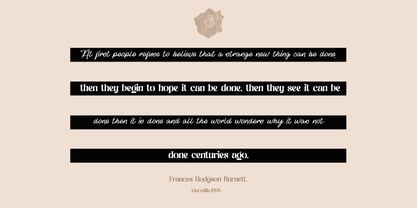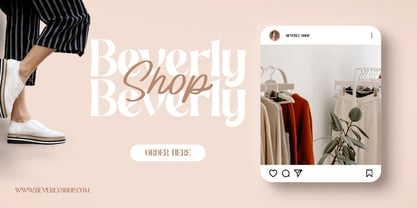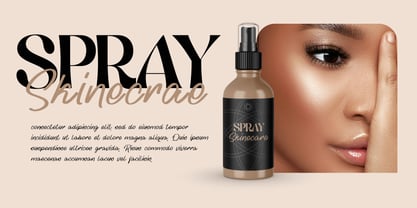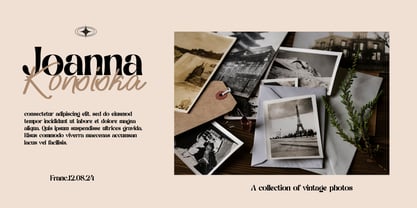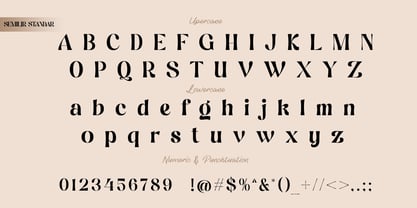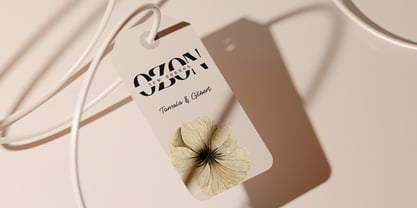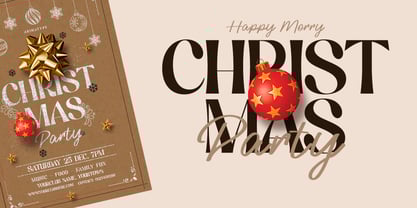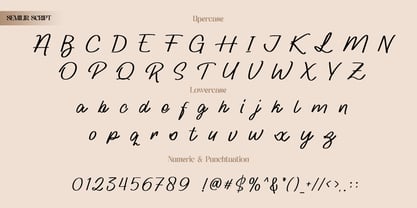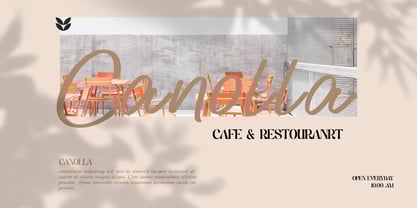
Semilir
The Semilir Font Family was designed by Amri Mauludin and published by ArimaType. Semilir contains 2 styles and family package options. More about this family
Semilir is the perfect blend of refined serif and elegant script fonts, designed to bring harmony to various designs. With smooth script strokes and sturdy geometric serif shapes, Semilir offers an aesthetic yet versatile impression.
Equipped with unique alternates and ligatures in both styles, Semilir opens up limitless creative possibilities. Ideal for wedding invitations, beauty branding, merchandise, cafe names, and even band logos, Semilir is the go-to font for delivering stylish yet personal messages.
Inspired by the desire to merge two worlds—serif and script—Semilir emerges as a medium of inspiration that frees designers from limitations.